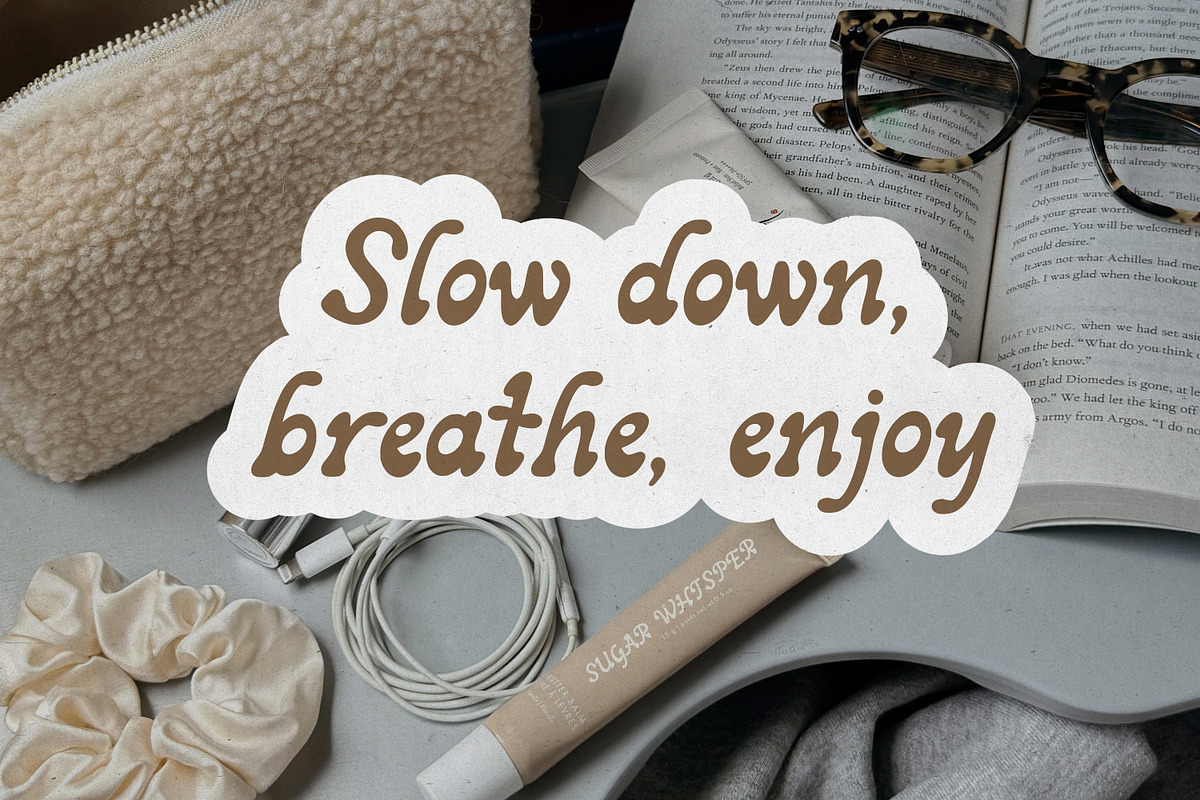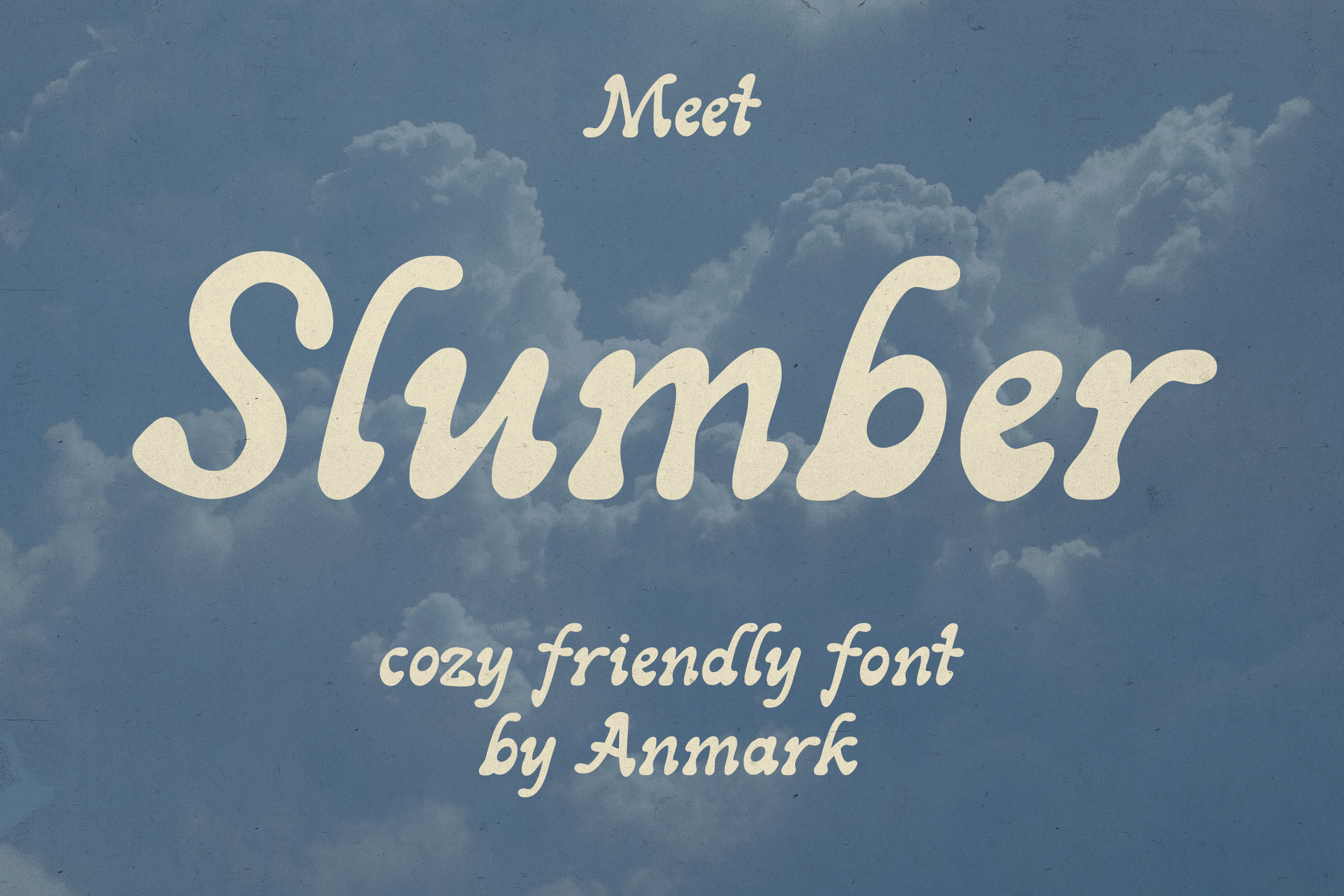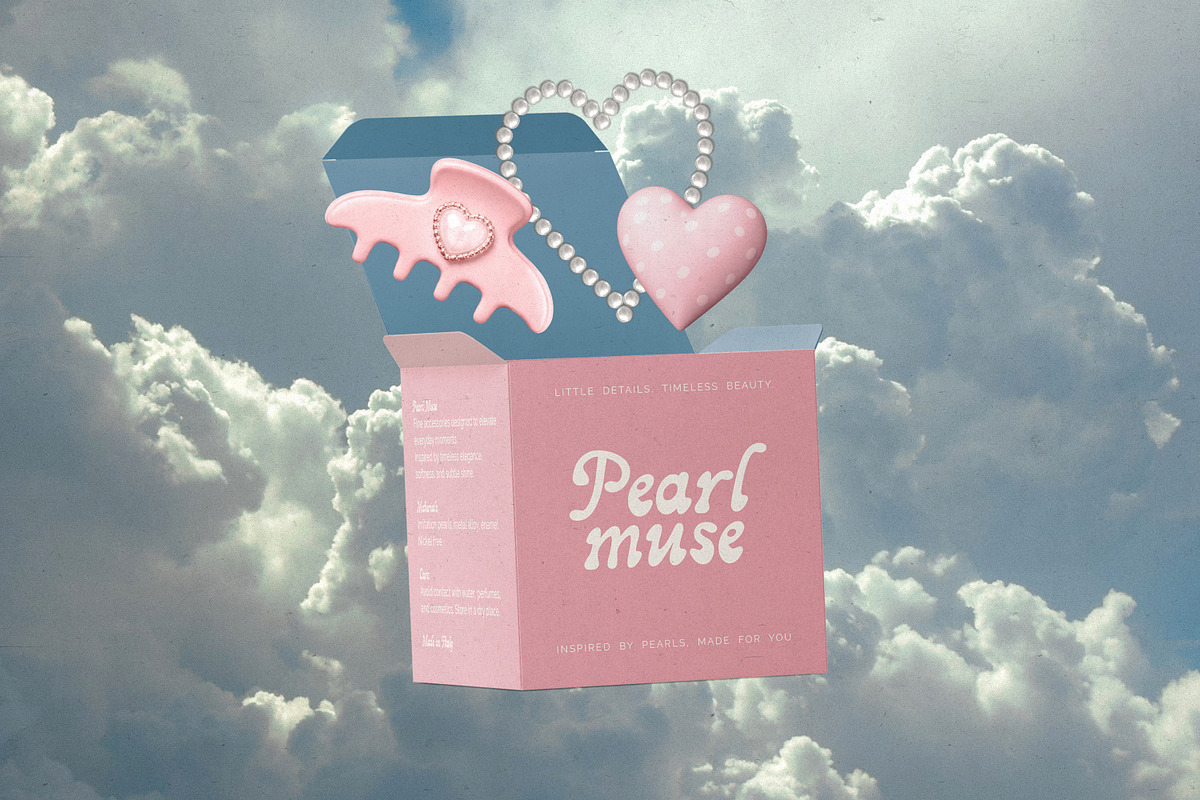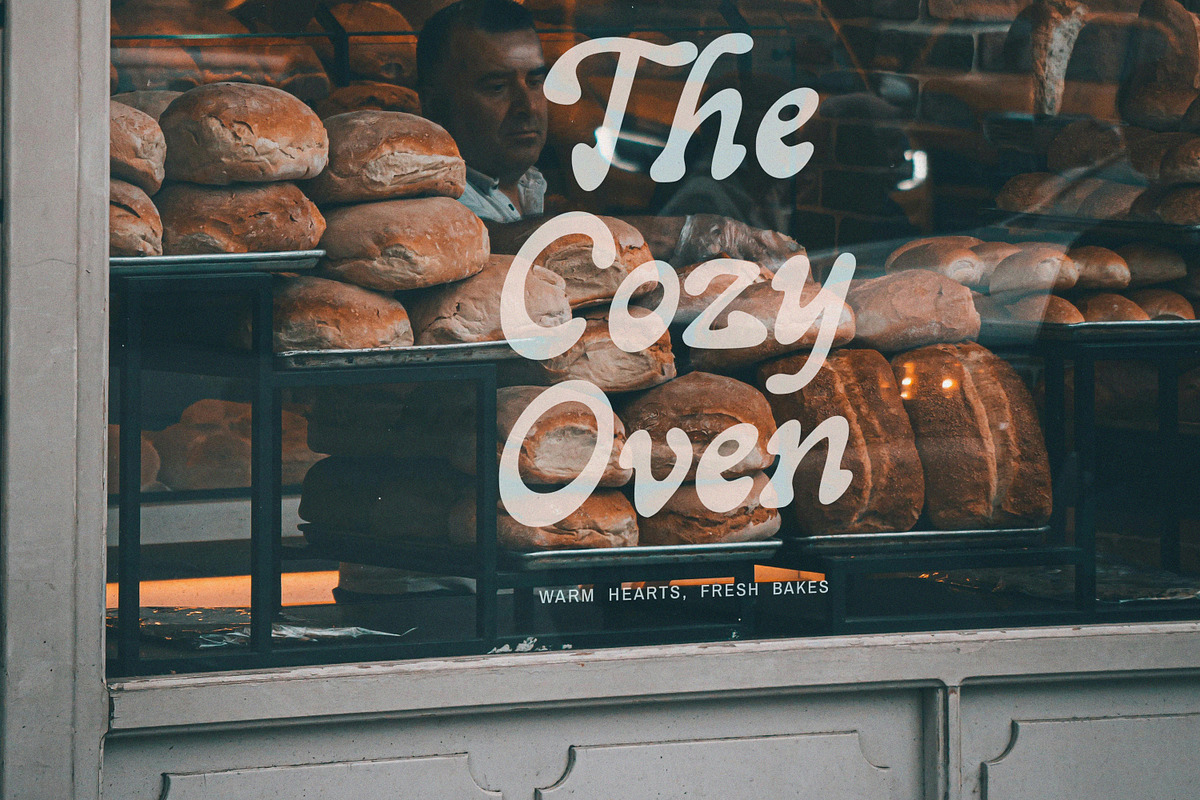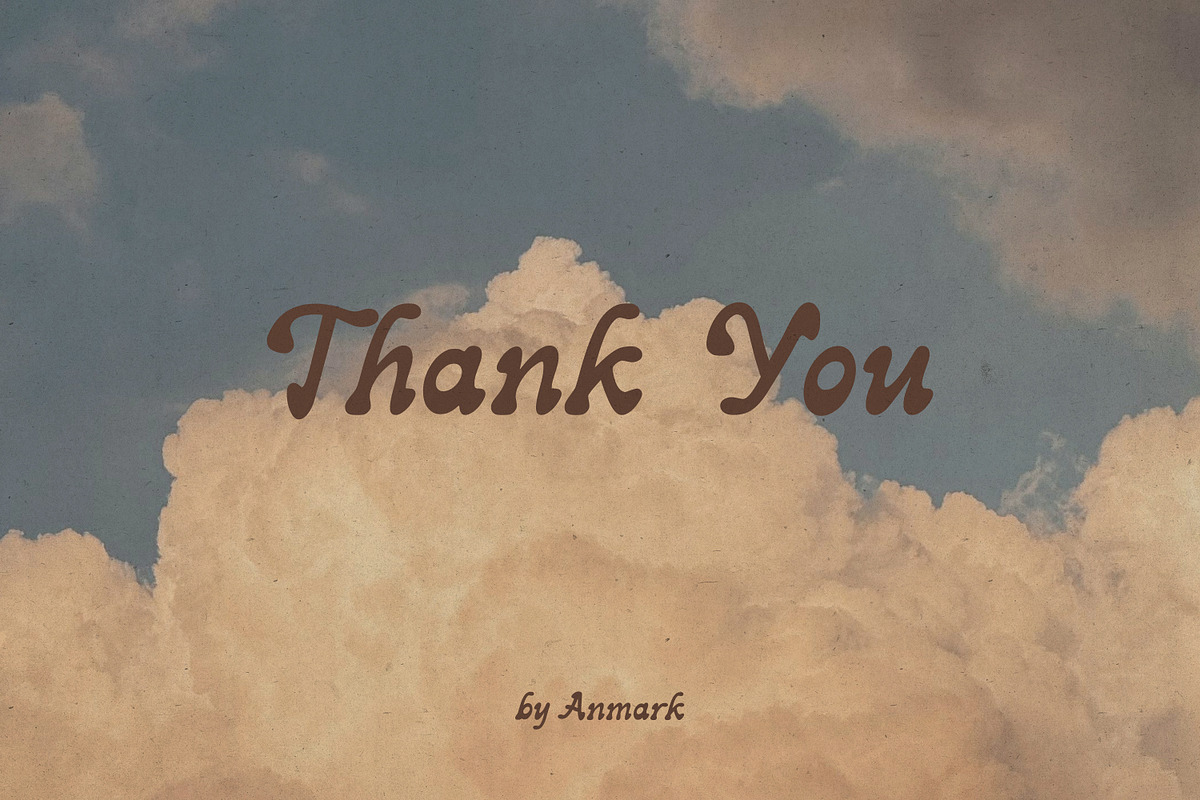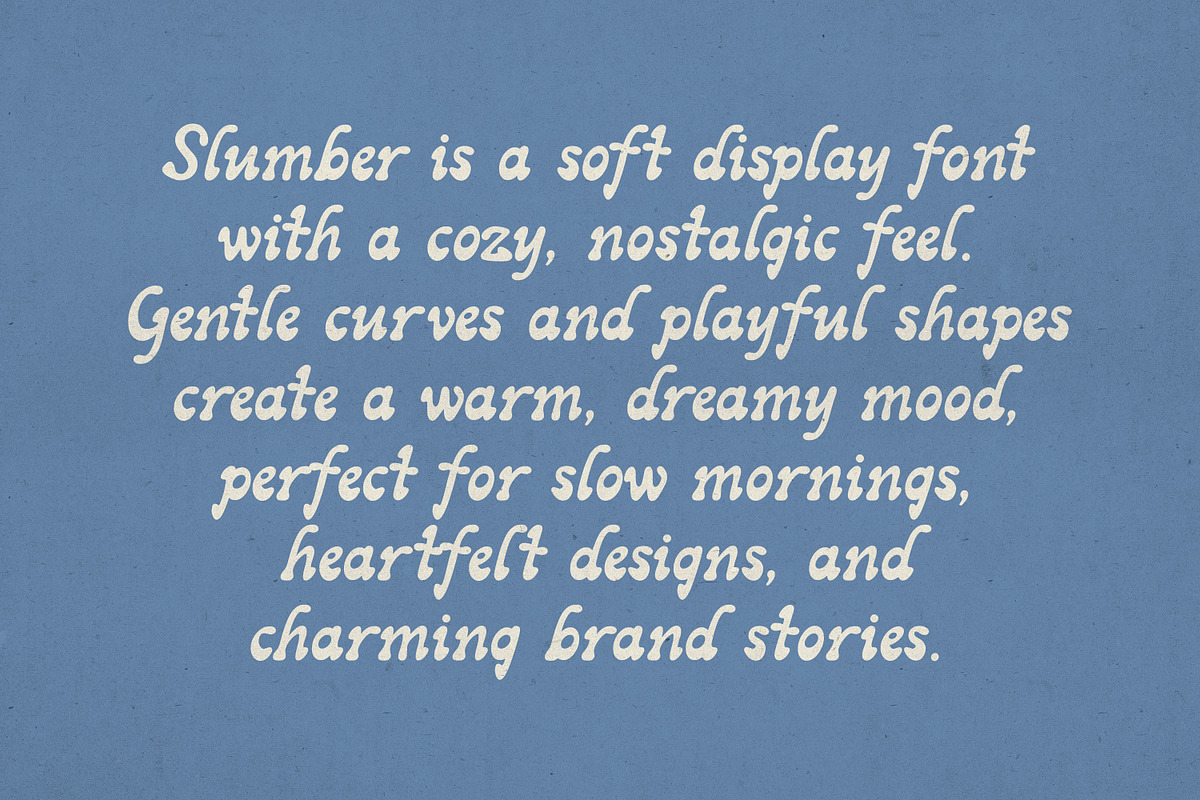
Slumber Playful Wavy Friendly Font
Slumber is a playful and friendly display font with a cozy, relaxed personality. Its soft curves and slightly imperfect shapes create a warm, approachable feel, perfect for designs that celebrate slow living, comfort, and everyday joy.
This font works beautifully in bakery branding, café menus, packaging, lifestyle products, and small business identities. Slumber is also a great choice for social media graphics, quotes, posters, greeting cards, children’s products, and creative projects that need a cheerful, inviting touch. It pairs especially well with cozy photography, handmade aesthetics, and nostalgic visual styles.
Designed to bring warmth and personality to your designs, Slumber adds charm, softness, and a sense of calm wherever it’s used.